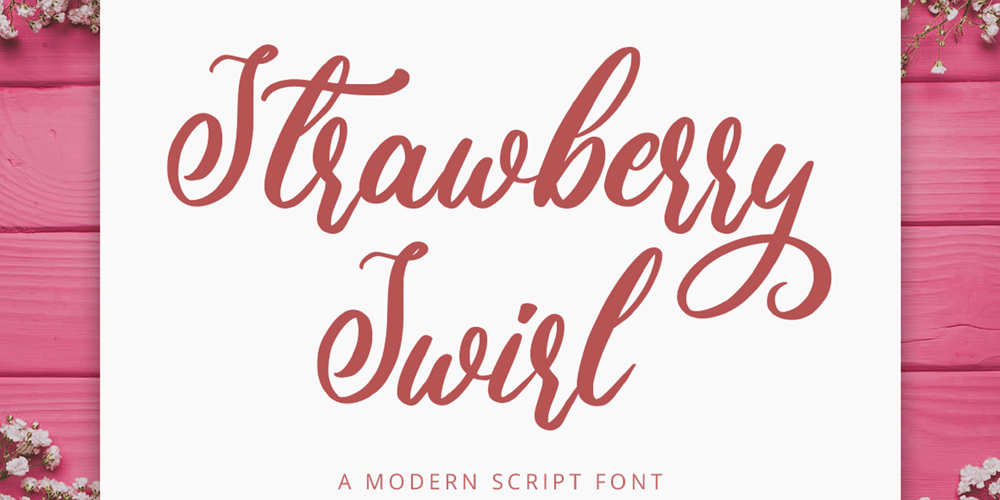
Strawberry Swirl
Strawberry Swirl font
Strawberry Swirl Font Family was designed by Heri Imanudin and published by Krafted. Strawberry Swirl contains 1 styles and family package options. Imagine a world filled with swirls of strawberry, pops of pink, and pure joy to go around for everyone…Are you trying to make an elegant, sweet, and stylish statement with your invitations, social media, website, or printed materials? Then grab some cotton candy, crack a smile, and get ready for a swirly day of wonders!Introducing Strawberry Swirl – A Modern Script Font.This gorgeous & stylish font can be used for a host of different content needs and projects. Use it for your headings, logos, business cards, printed quotes, invitations (wedding, birthday, engagement, etc.), packaging, resumes, and even your website or social media branding.Enchant & delight your audience, clients, or guests with this versatile, stylish, and elegant font.What you’ll get:- Multilingual & Ligature Support- Full sets of Punctuation and NumeralsCompatible with:- Adobe Suite- Microsoft Office- KeyNote- PagesSoftware Requirements:The fonts that you’ll receive in the pack are widely supported by most software. In order to get the full functionality of the selection of standard ligatures (custom created letters) in the script font, any software that can read OpenType fonts will work.We hope you enjoy this font and that it makes your branding sparkle! Feel free to reach out to us if you’d like more information or if you have any concerns.